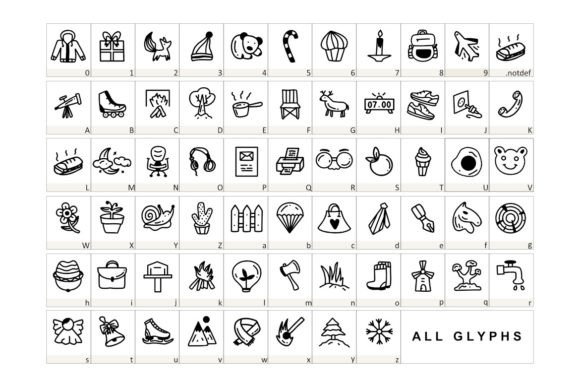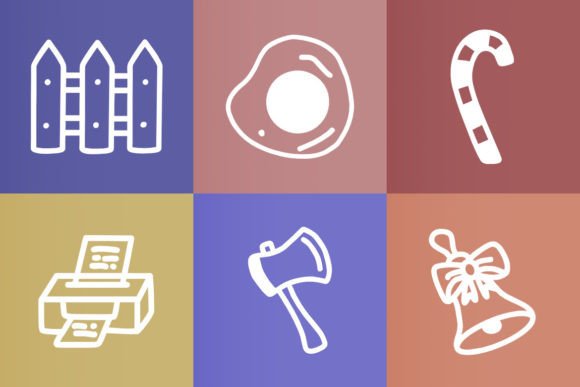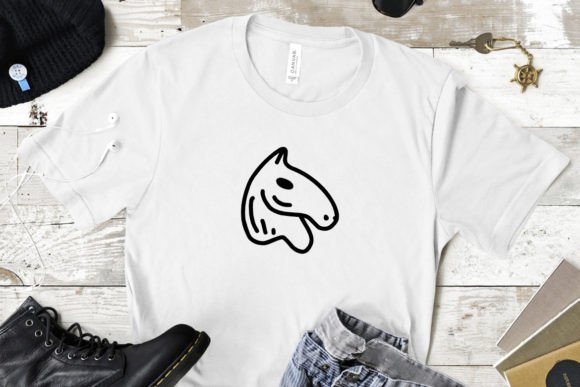
Introduction to Excellent Font
Excellent is a cute and useful dingbats font perfect for a wide variety of projects.
Use it for stickers, posters, t-shirts, cards, apparel graphics, etc ; you will love the results.